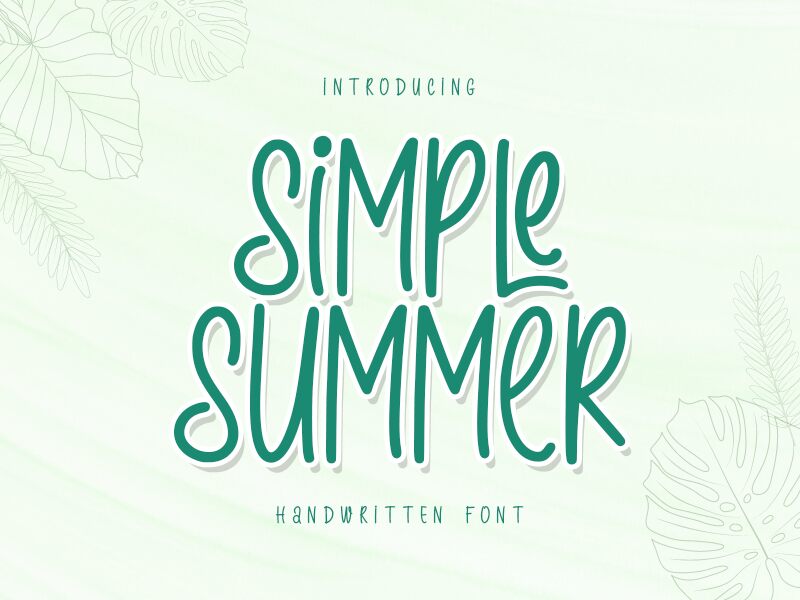
Simple Summer, designed by Alif Ryan Zulfikar, is a delightful handwritten font that exudes a carefree spirit. With its semi-light weight and condensed width, it adds an elegant touch to any project. Perfect for crafting eye-catching logos and branding materials, this font lends itself to various creative endeavors. Whether you're designing invitations for summer soirées, creating captivating social media graphics, or developing playful children's book covers, Simple Summer will infuse your work with charm and whimsy. Let your imagination run wild as this versatile typeface brings warmth and simplicity to your next design venture.